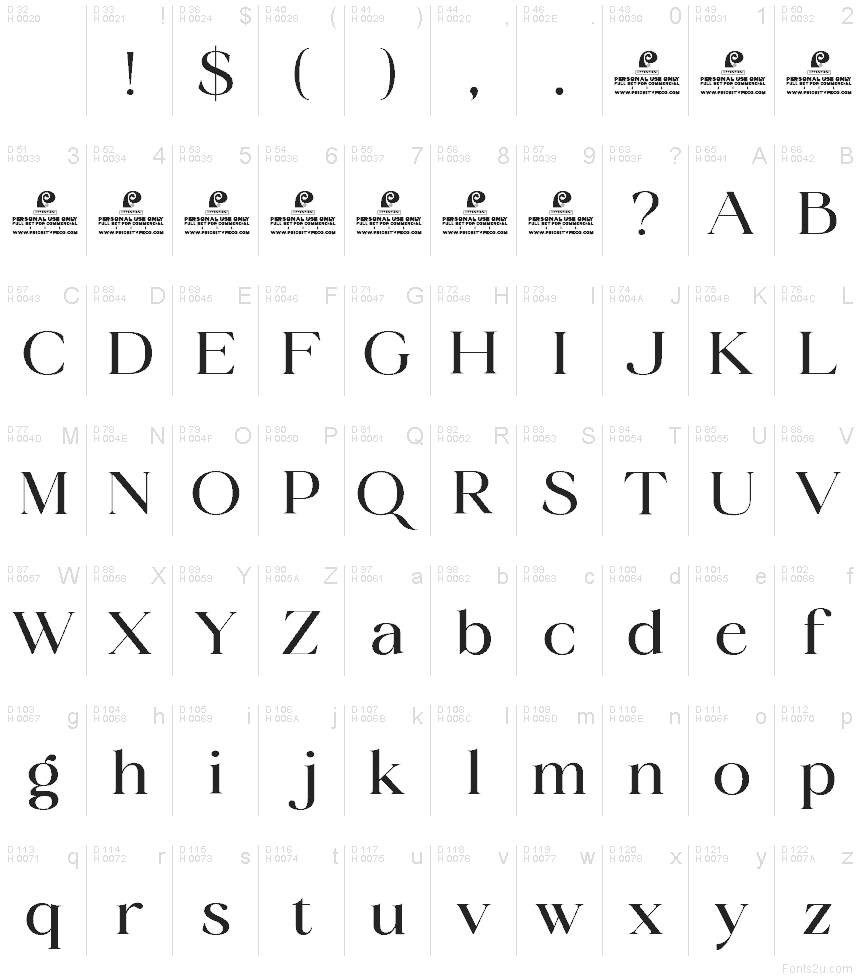
Radiant Charisma DEMO Medium
Radiant Charisma font, crafted by Prioritype Co, is a free serif font that embodies elegance and sophistication. Its intricate design blends a classic feel with a refined aesthetic, presenting itself with an unparalleled formal tone. It holds an illustrious personality that overflows with admiration for its subtlety and utterly enjoyful style.
Radiant Charisma is your missing piece for branding projects, logo designs, headlines and headings. It goes well within magazines ad editorials as it does with typographic artwork and quote making. Have fun using it in signage, business cards, invitations cards and posters designing to give these mediums an elite classic feel no other font can provide.